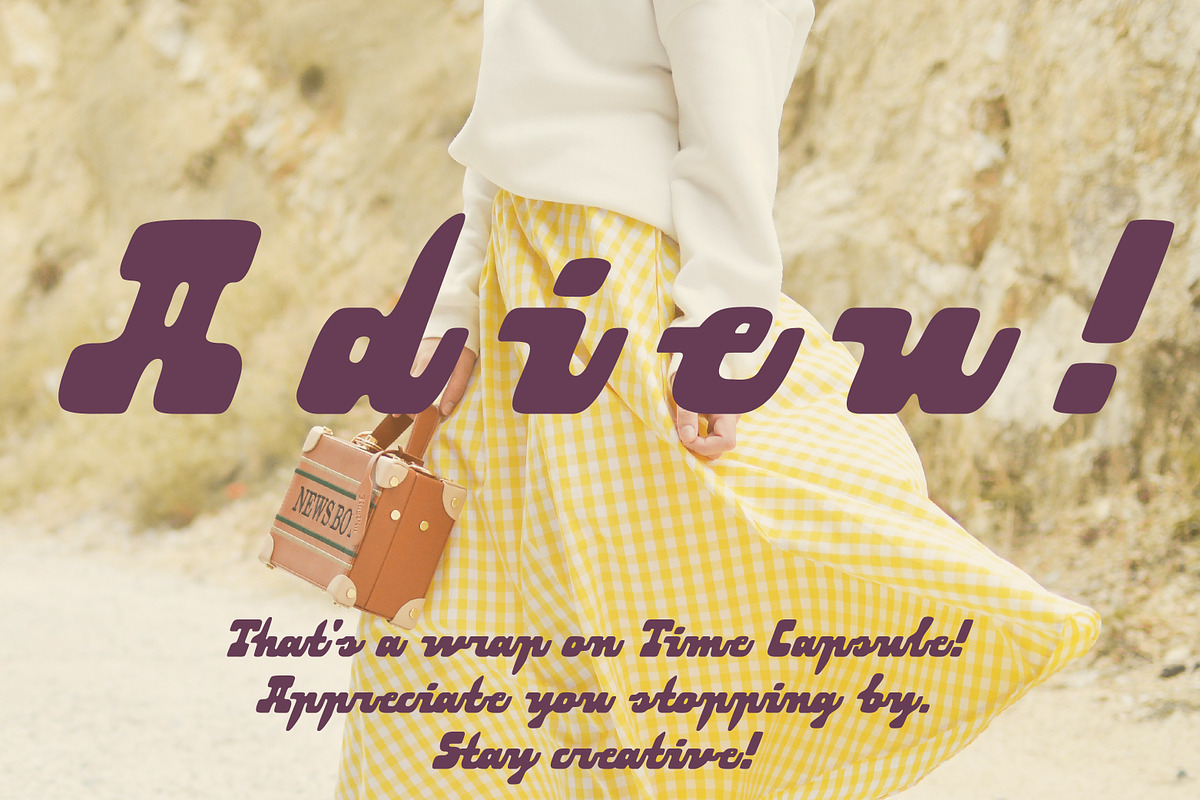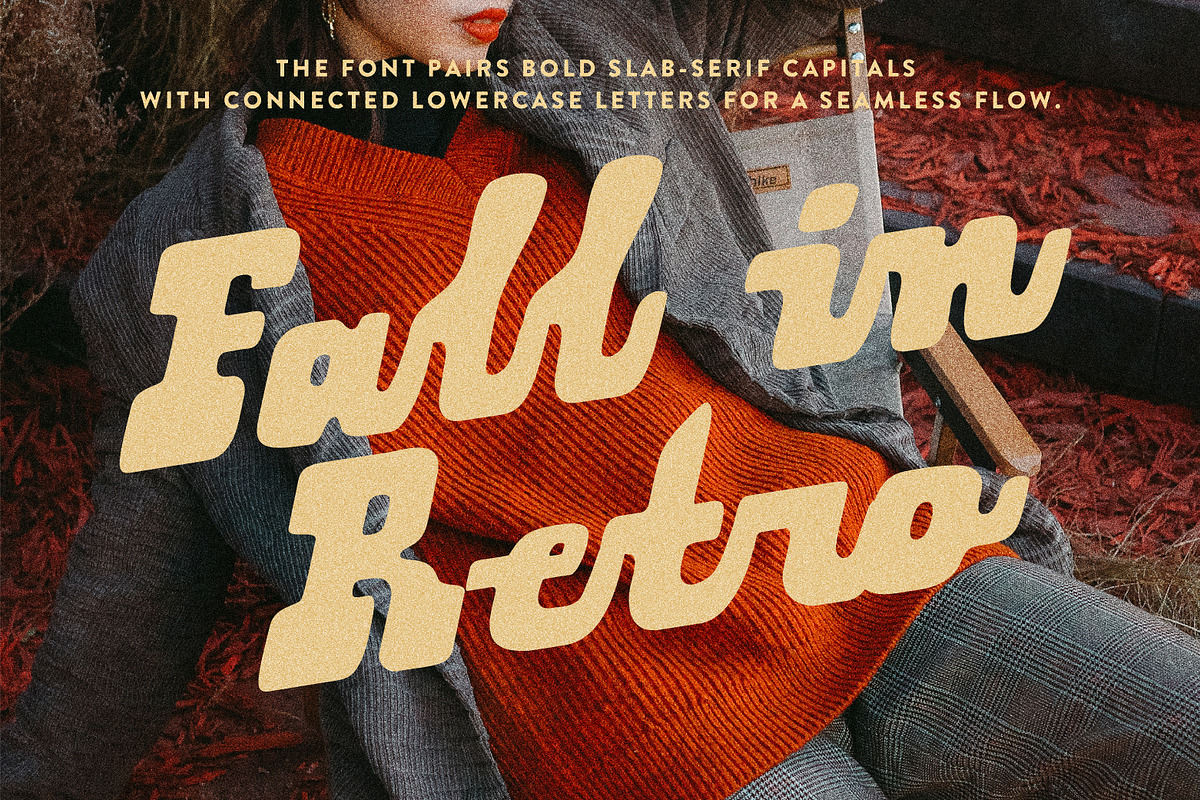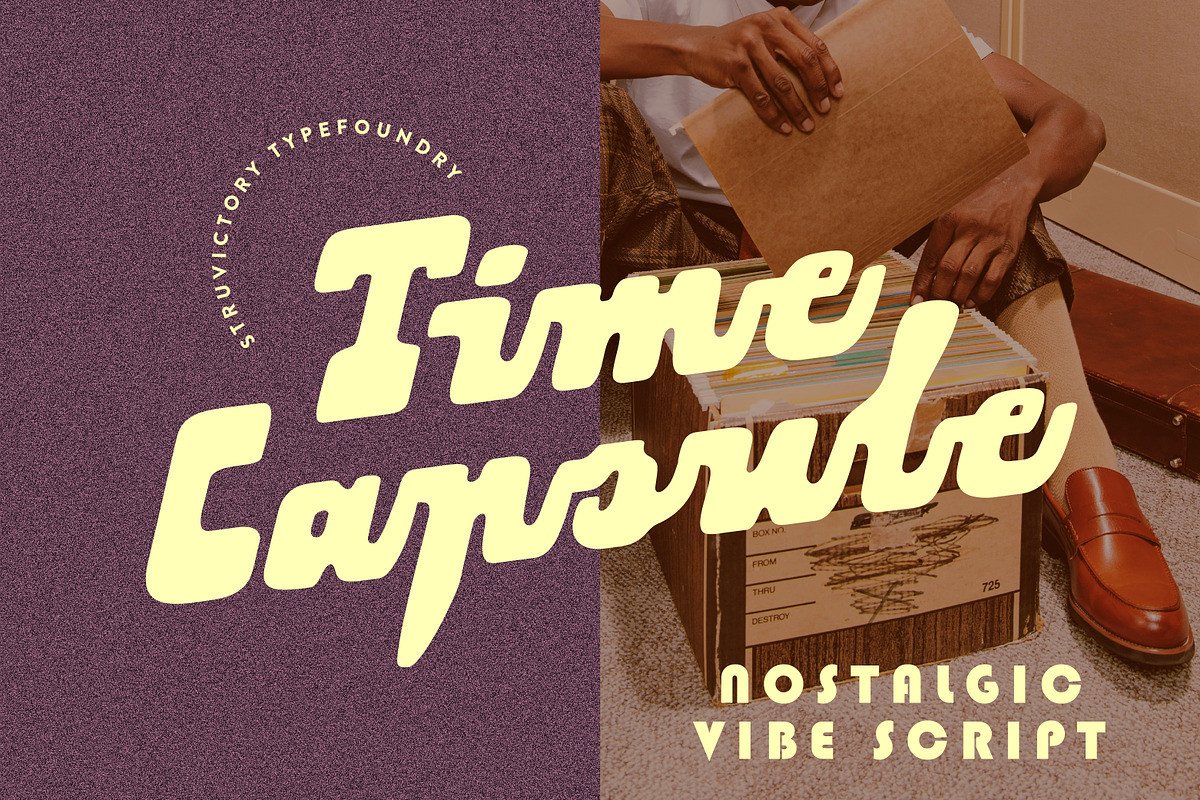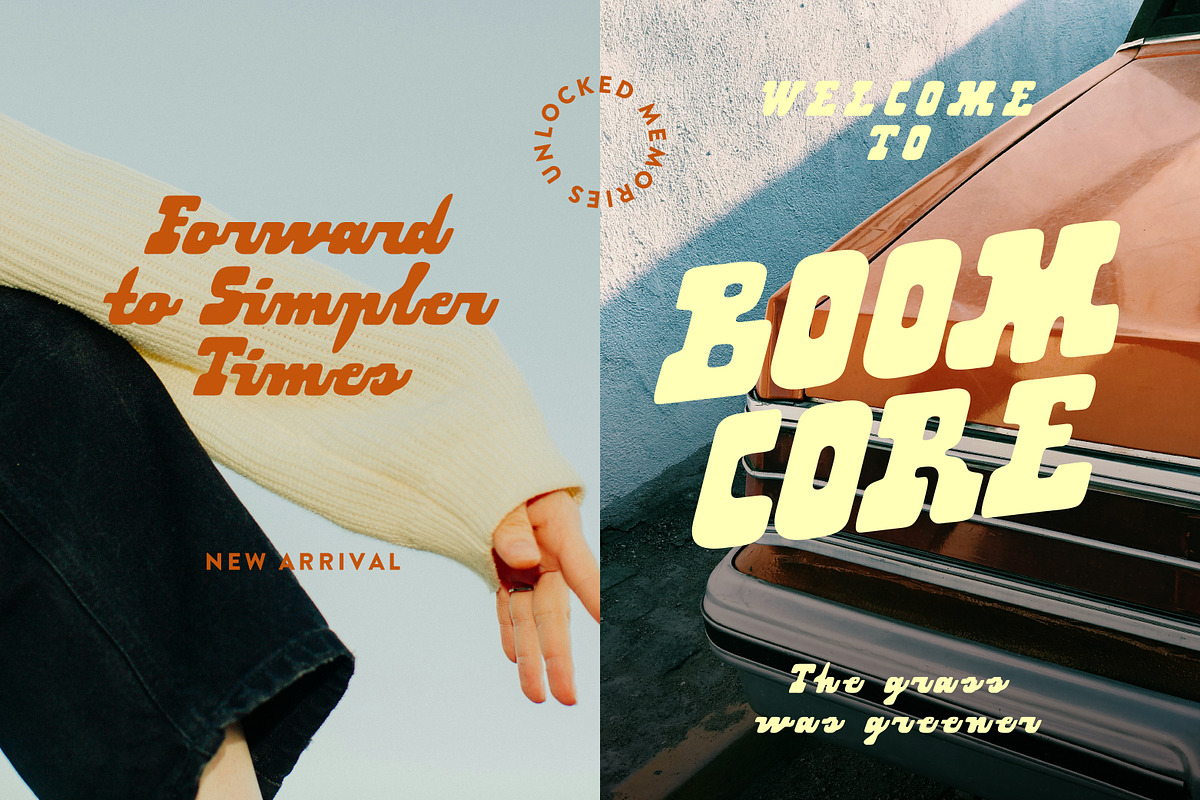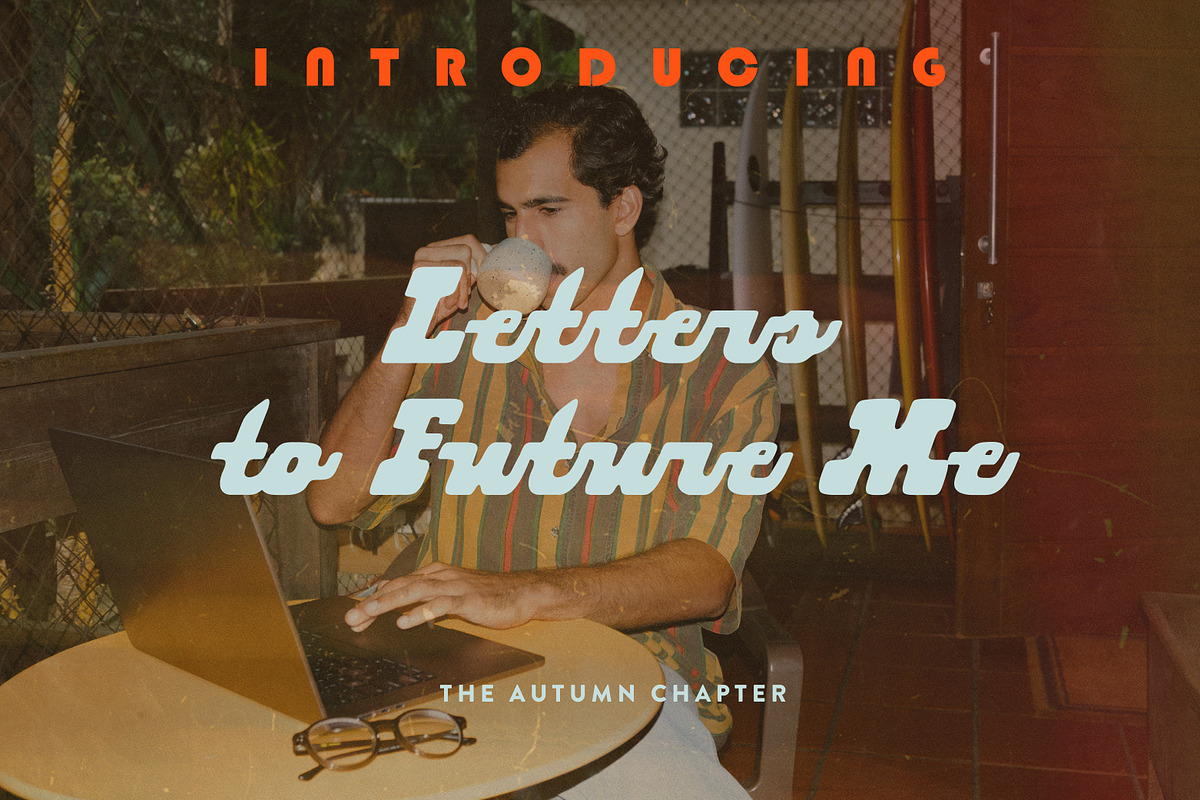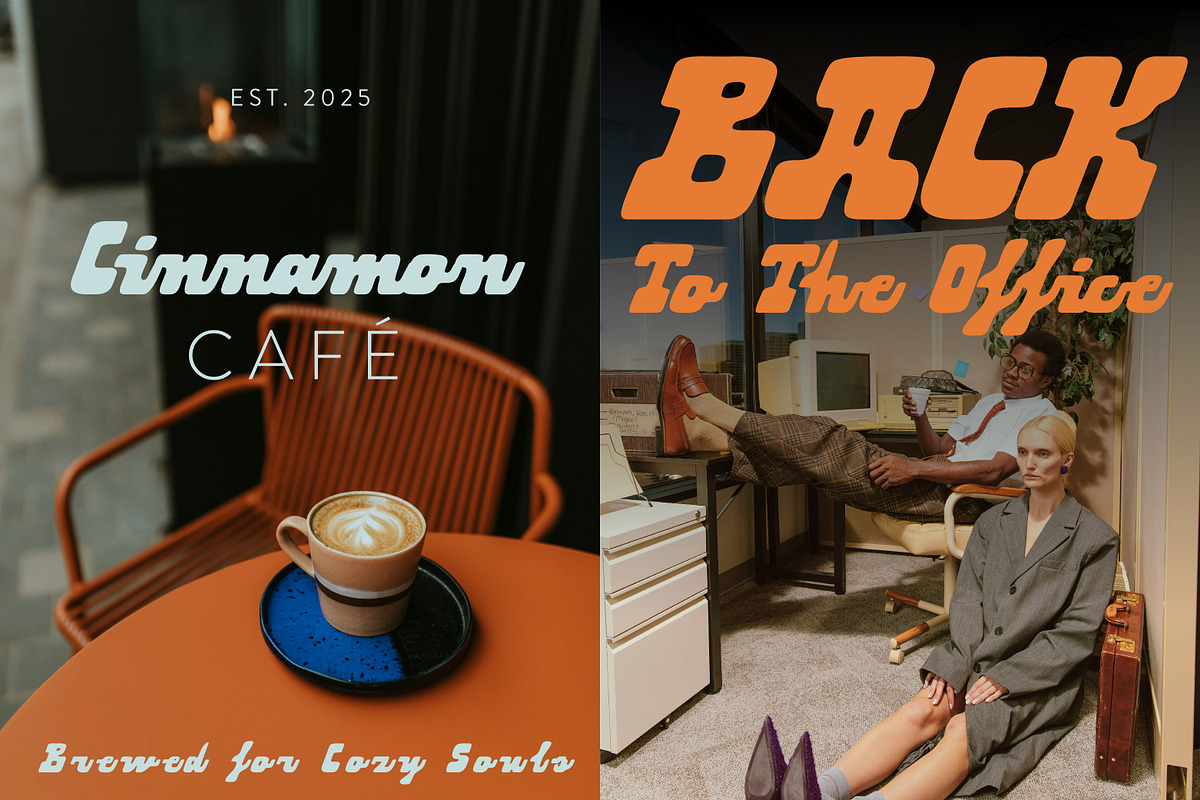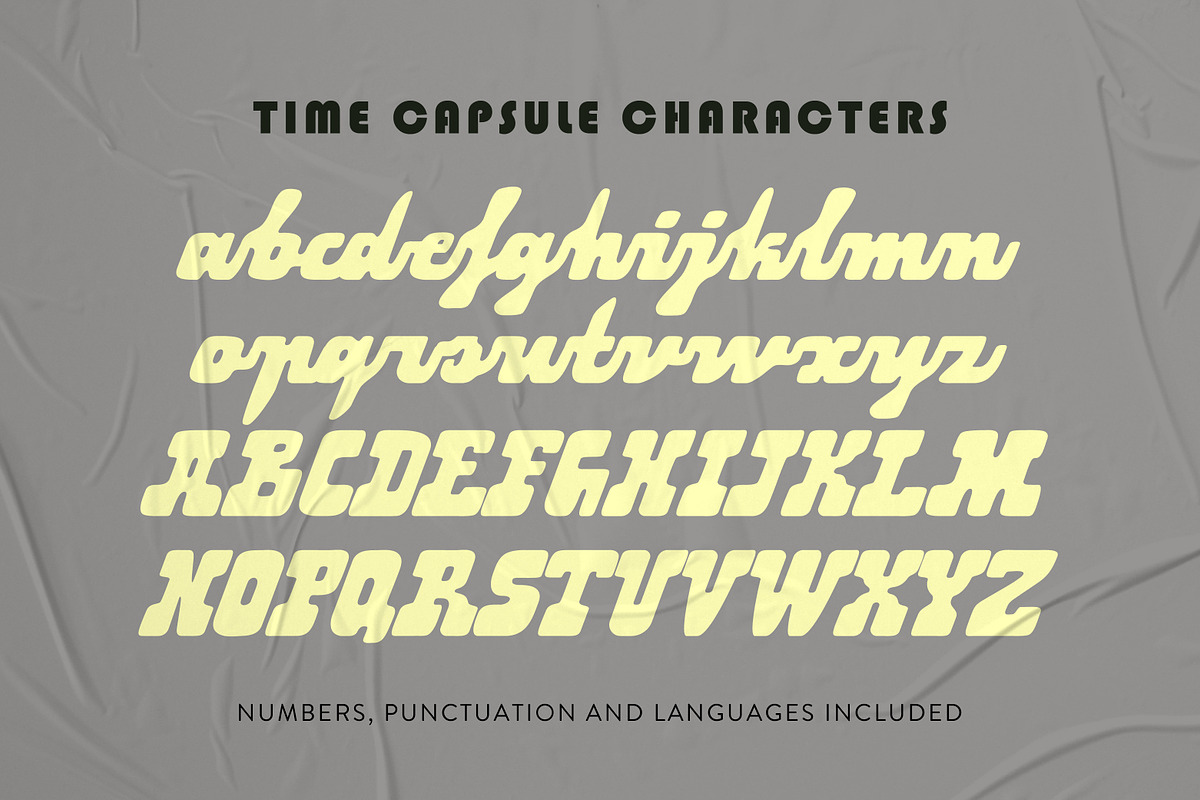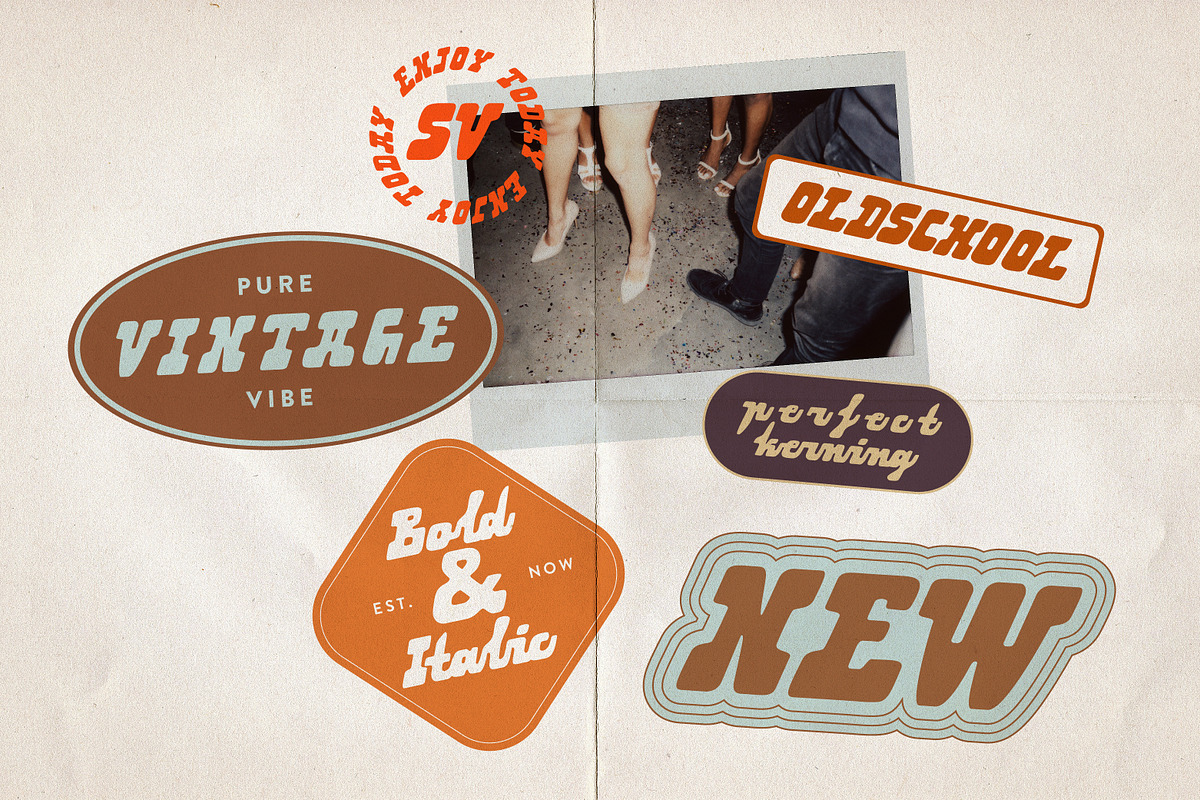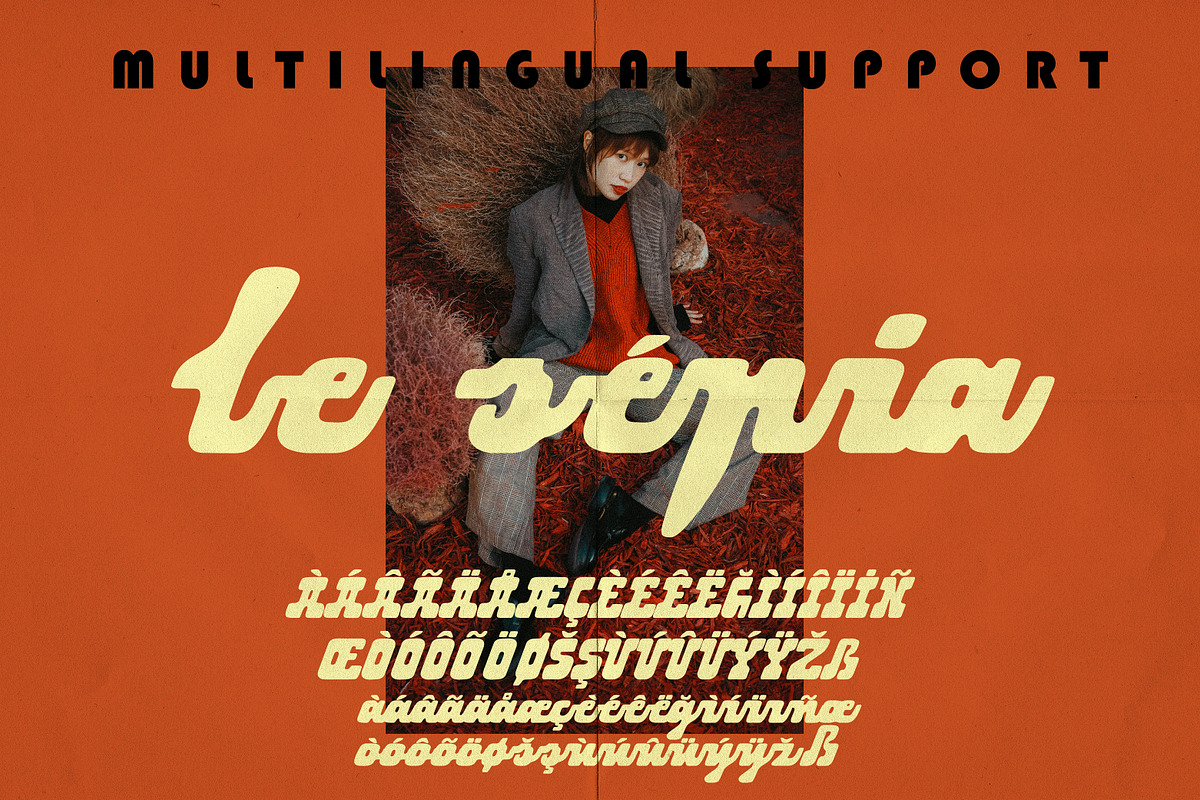
Time Capsule Nostalgic Autumn Script
Time Capsule is a nostalgic bold script inspired by vintage logos and hand lettering. Sharp, squared strokes with groovy retro flair make it perfect for branding, packaging, and headlines that need a warm, authentic vibe. It’s easy to read yet full of personality — a timeless script for modern nostalgia. The font pairs bold slab-serif capitals with connected lowercase letters for a seamless flow.
Time Capsule supports the most popular latin-based languages, you can check the symbol you need by typing a couple of words in the font preview box.